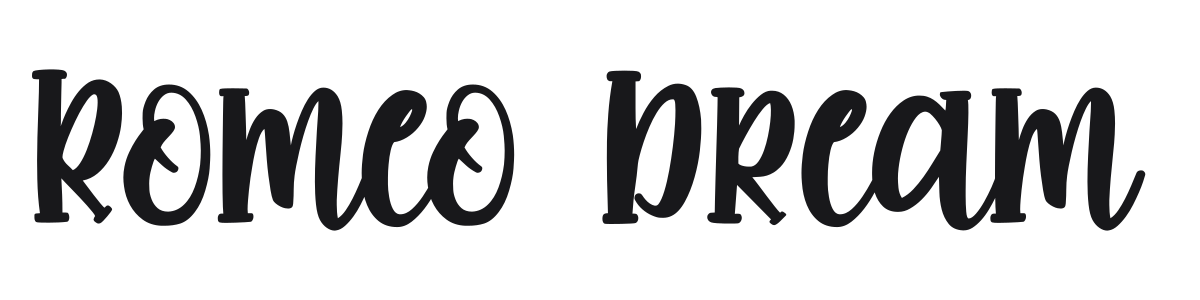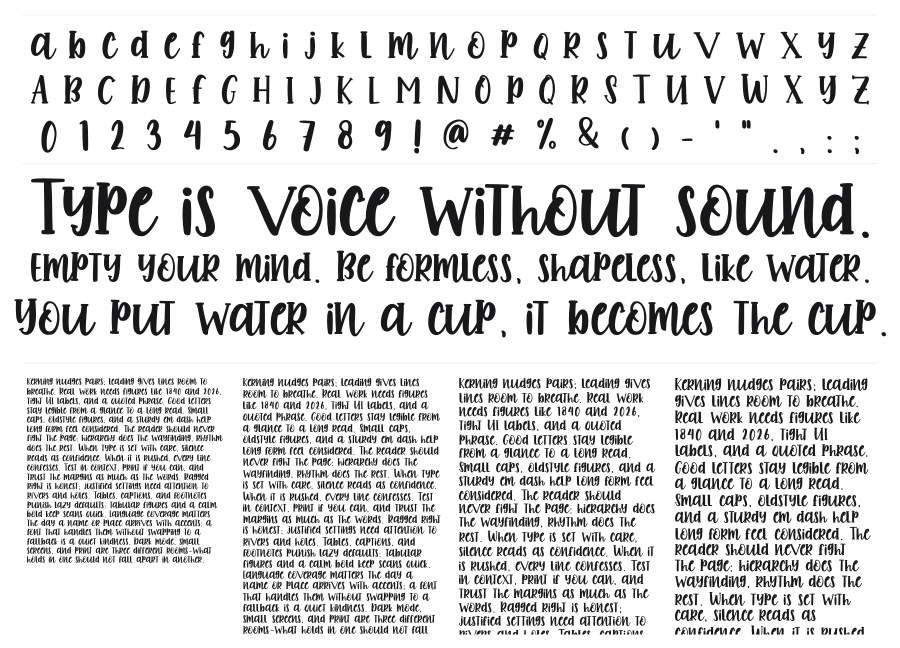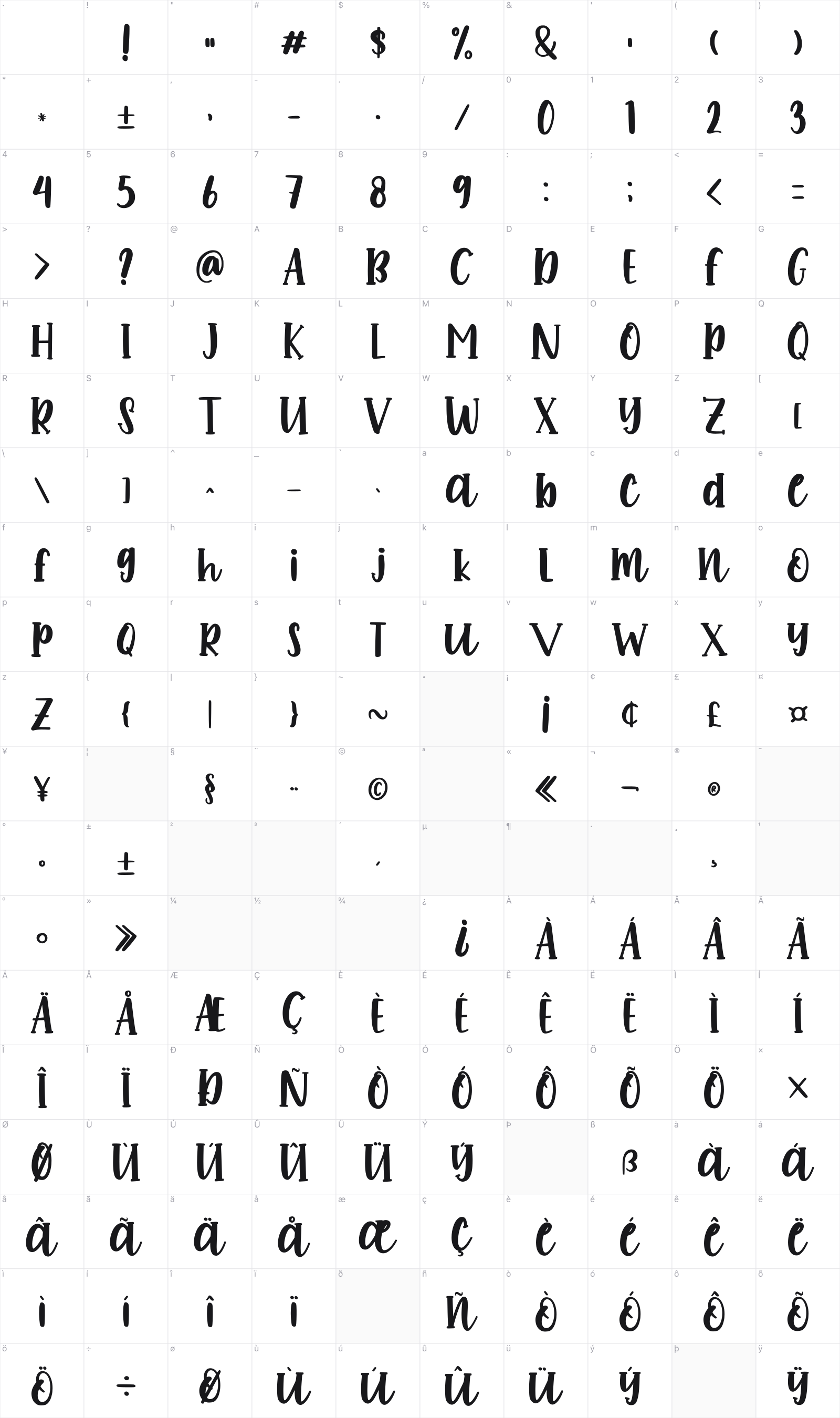
Romeo Dream
Romeo Dream is a bold upright casual script with a lively, hand-lettered personality. Characters vary in height and weight in a way that feels natural rather than chaotic, giving the font warmth and energy without tipping into novelty. It works well for branding, packaging, and any headline that needs a friendly, handmade quality.